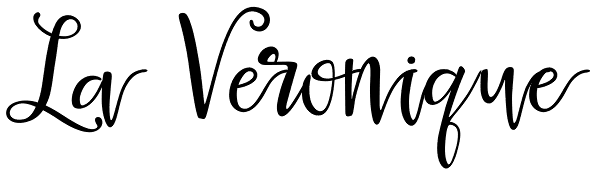
La Veronique
A hand written typeface, created with the upcoming spring and sunshine in mind. It is full of alternates, swashes, ligatures and other open type features. You can use it for wedding invitations, thank you cards, quotes - the choice is only limited...